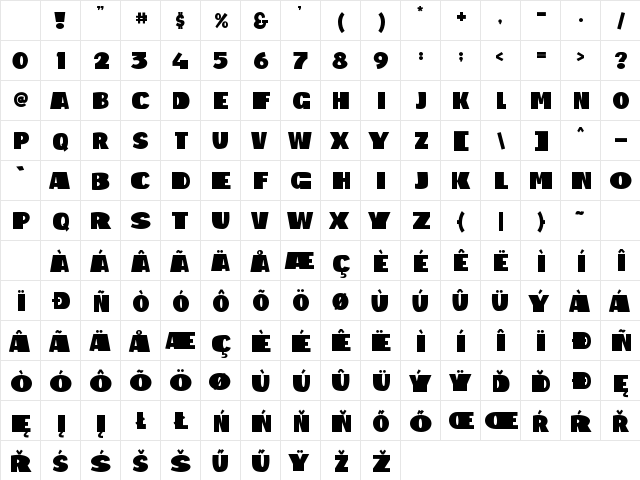
Complete Big Shout Bob Regular glyph index. Displaying only characters natively supported by Big Shout Bob Regular font.
Big Shout Bob is a composed and adaptable typeface that performs quietly and consistently across a wide range of design contexts.
Pro Tip: Use Big Shout Bob in both headline and body roles to test its range before committing to a single application.
Who designed the Big Shout Bob Regular font?